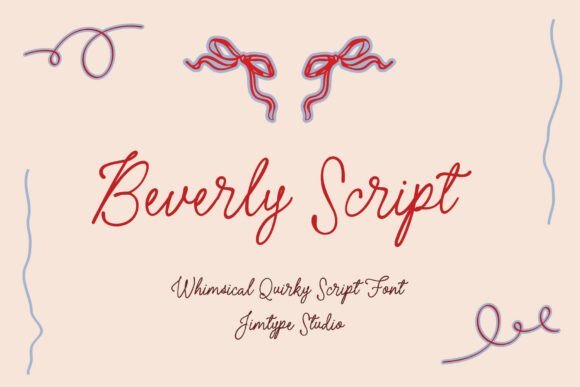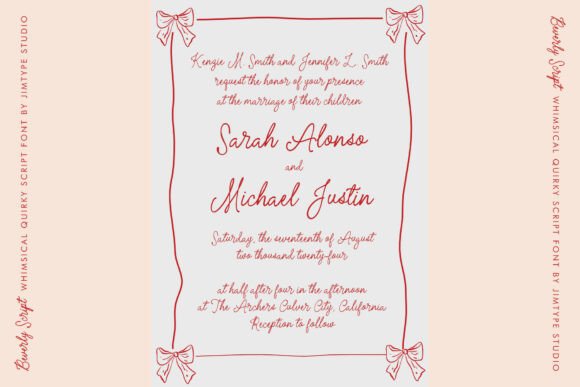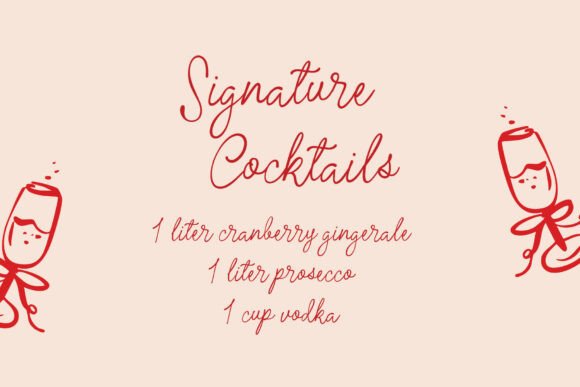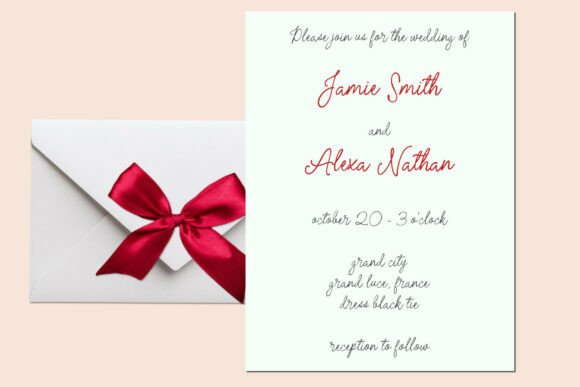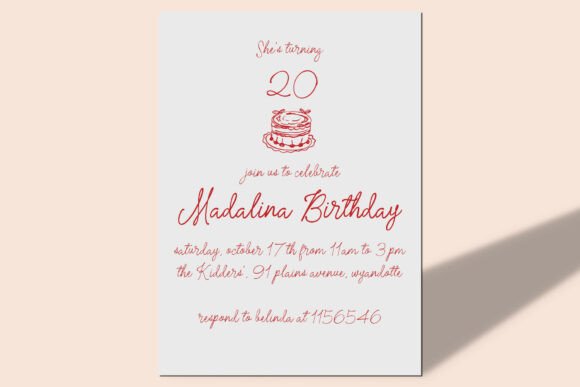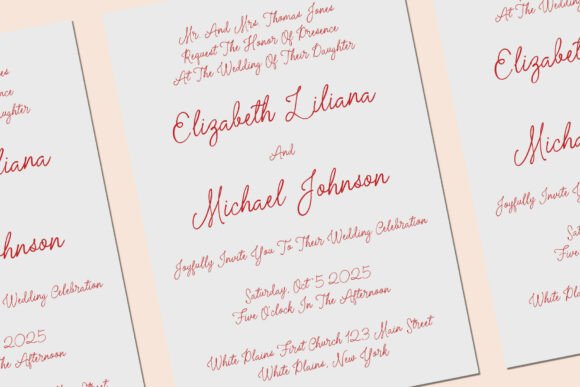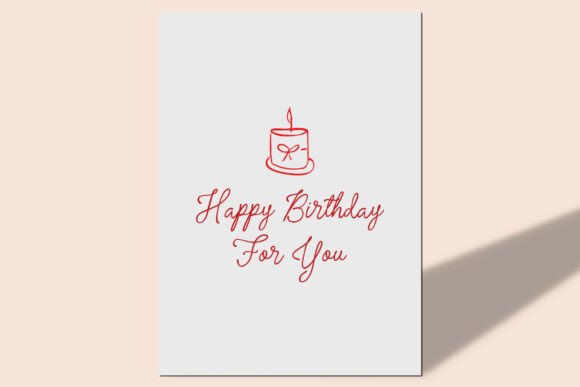
The Perfect Script: Unleashing the Whimsy of Beverly Script Font
There’s nothing quite like the thrill of brainstorming a new project, surrounded by scattered papers, colorful pens, and a dash of creative chaos. As a designer, you know that moment when inspiration strikes, and you envision the perfect font to bring your vision to life. For many, that moment is made possible by the enchanting Beverly Script Font, a handwritten script that effortlessly weaves magic into every design.
Beverly Script Font is a masterful creation, designed to evoke a sense of natural flow and whimsy. Its versatility knows no bounds, making it an ideal choice for a wide range of designs, from bespoke wedding invitations to playful art prints. Whether you’re a seasoned pro or just starting out, this font is sure to become a trusted companion in your design journey.
As a valuable addition to any designer’s toolkit, Beverly Script Font offers unparalleled flexibility and style. Its unique charm can elevate even the simplest of designs, making it an essential element in branding, logos, and website themes.
Beverly Script Font Key Features
- Font Style: Script, elegant, and cursive, making it ideal for invitations, wedding stationery, and other formal events.
- Character Set: Includes over 400 glyphs, including uppercase and lowercase letters, numbers, punctuation, and special characters.
- Unique Characteristics: Features a flowing, handwritten feel with subtle flair and connection between letters, creating a personal and elegant touch.
Beverly Script Font Review
At first glance, the Beverly Script Font ✨ catches your eye with its elegant, flowing curves and soft edges. It’s perfect for adding a touch of sophistication and whimsy to your designs. The font is well-suited for various applications, including invitations, logos, and even book titles. The script style is versatile and can be used for both formal and informal projects.
- ✨ Elegant and flowing curves, making it perfect for creative and artistic designs
- ✨ Soft edges, which help reduce harshness and create a more inviting atmosphere
- ✨ Highly versatile, suitable for a wide range of projects, from formal to informal
- ✨ Well-suited for applications like invitations, logos, and book titles
- ⚠️ May not be the best choice for projects requiring a clear and legible font
- ⚠️ Can be challenging to read at small font sizes due to its intricate design
- ⚠️ Limited character set, which may not be suitable for extensive text-based projects
The Beverly Script Font is a beautiful and elegant addition to any design project. While it may have some limitations, its unique style and versatility make it a valuable tool for designers looking to add a touch of sophistication and creativity to their work.
Beverly Script is a beautiful, elegant font perfect for:
- Anniversary and birthday cards
- Formal event signage and banners
- High-end branding and marketing materials
Remember to pair Beverly Script with a clear, readable font to ensure your text is easy to read.